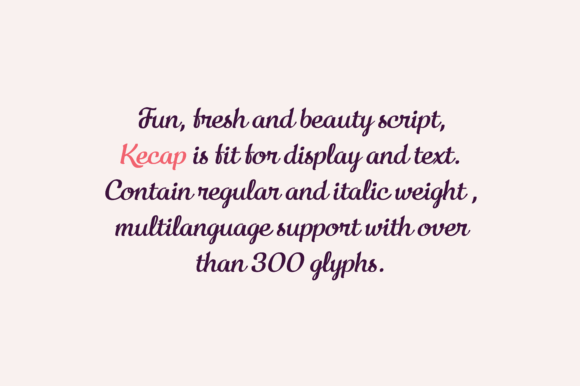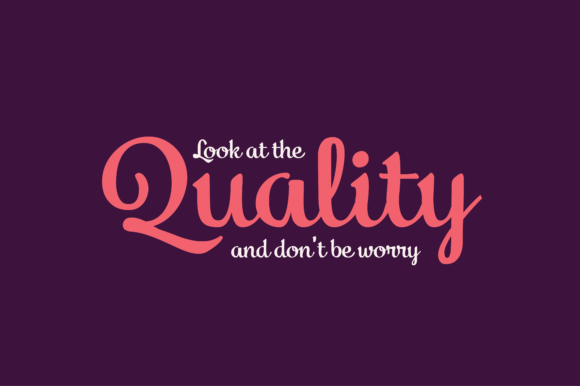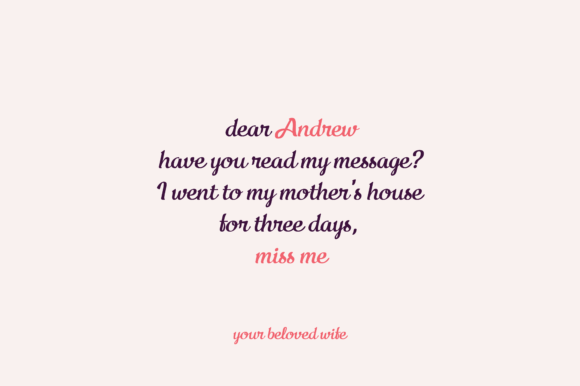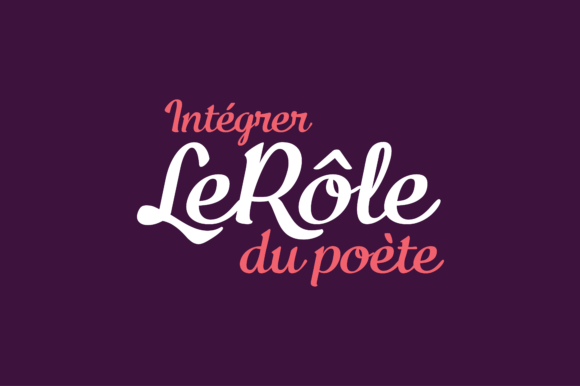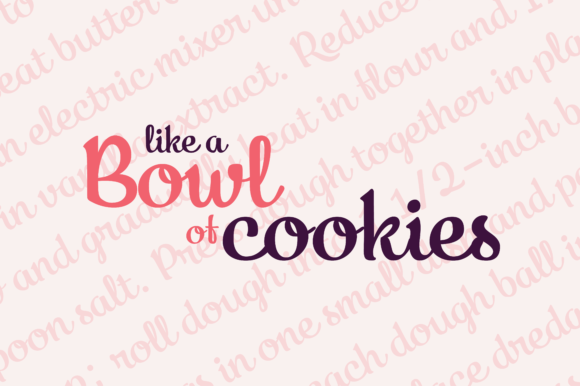
Introduction to Kecap Script Font
Remember that moment when you’re brainstorming ideas for your next creative project and you stumble upon the perfect font? The one that makes your design pop and sets the tone for your entire brand? For designers, finding that perfect font can be a game-changer. And if you’re on the hunt for a high-quality script font that’s sure to elevate your design, look no further than the Kecap Script Font.
This beautiful font has been gaining popularity among designers for its fresh and beautiful look. Whether you’re creating logos, branding materials, product cards, or labels, the Kecap Script Font is a versatile design resource that’s sure to impress. With its smooth, connected script, this font is perfect for adding a touch of elegance and sophistication to your designs. And the best part? It’s available for free download with a transparent background, making it easy to incorporate into your next project.
Key Features of Kecap Script Font
- Unique, hand-drawn design that adds a personal touch to any creative project
- High-quality, professional font suitable for various design resources, including logos, typography, and branding
- Comes with a transparent background, making it easy to layer and customize in your design
- Features a single weight and 300 DPI resolution, ideal for printing and digital use
- Perfect for designers seeking a distinctive, elegant font for their creative project
Honest Review: Kecap Script Font
I recently stumbled upon the Kecap Script Font and I must say, it’s been a game-changer for my creative projects. As a designer, I’m always on the lookout for high-quality design resources that can elevate my work and make it stand out. The Kecap Script Font delivers on that promise, with its beautiful, hand-drawn script style that’s perfect for headings and titles.
One of the things I love about this font is its versatility. It’s great for a variety of creative projects, from wedding invitations to branding materials. Plus, it’s a free download, which is a huge bonus. I also appreciate the transparent background, which makes it easy to customize and use in different design contexts.
Here are some of the things that work well with the Kecap Script Font:
- Beautiful, hand-drawn script style
- Perfect for headings and titles
- Great for a variety of creative projects
- Only one style available
- May not be suitable for body text
Overall, I’m really impressed with the Kecap Script Font. It’s a great addition to any designer’s toolkit and can help take your creative projects to the next level. ✨
For the most out of the Kecap Script Font, use it for titles, headings, and quotes in your design. This font is ideal for creating a sophisticated and elegant look, making it perfect for wedding invitations, birthday cards, and other special occasion designs.